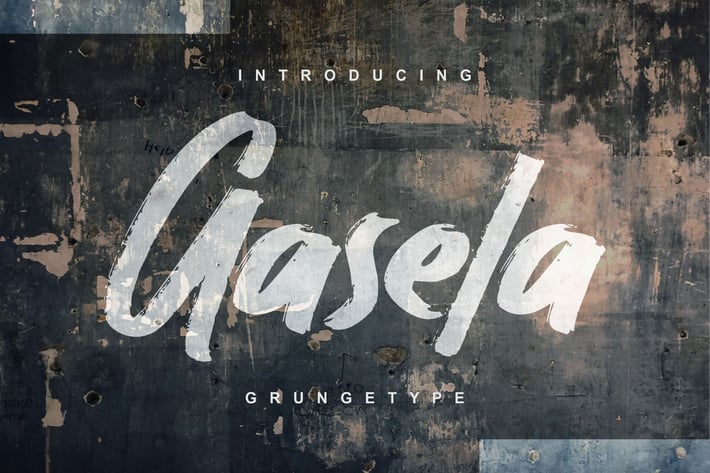
Gasela | Grungetype Font
Gasela | Grungetype Font with a calligraphy style, So beautiful on invitation like greeting cards, branding materials, business cards, quotes, posters, and more!